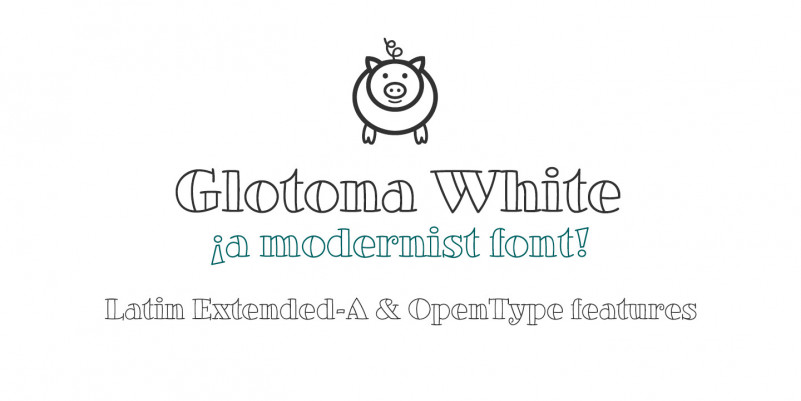
Glotona White Font
Glotona White are a outline modernist typography handwritten. Glotona is my tribute to Bodoni typefaces, revolutionary when they appeared in the eighteenth century and still valid today.
Include Bitcoin symbol: b# (ligatures)